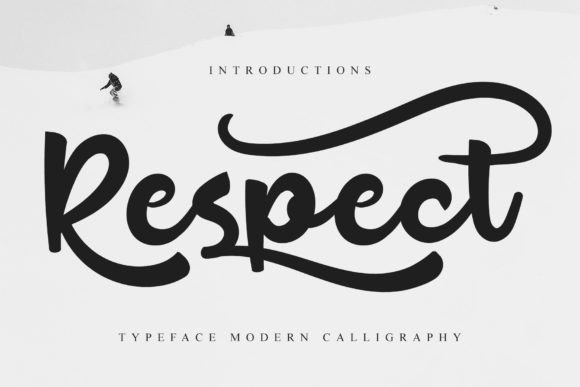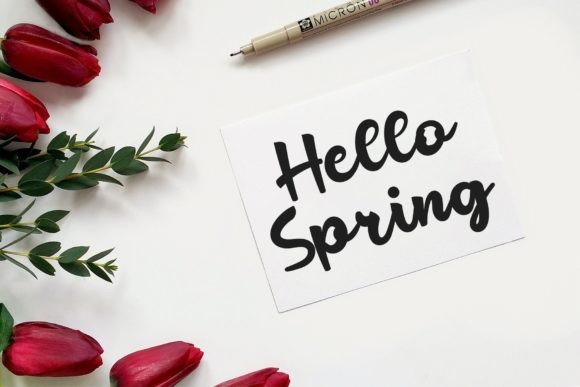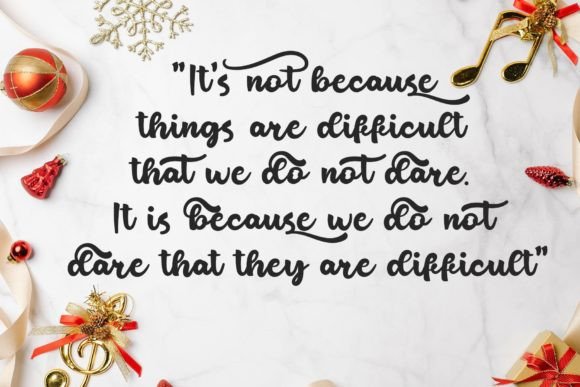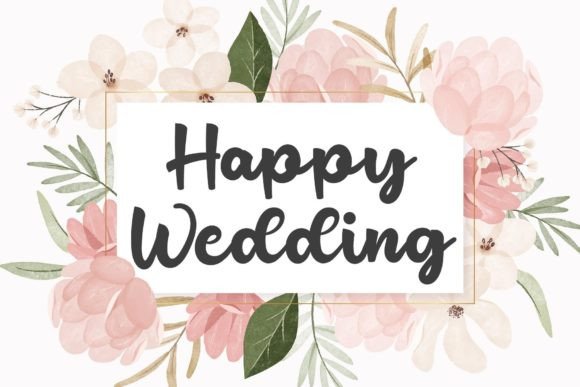
Respect Font
About the Respect Font
Experience the unique personality of Respect Font, a font designed for impact. Respect is a sweet and cursive handwritten signature script font. This gentle font will look gorgeous on a variety of design ideas. It will add a joyful and romantic touch to each of your projects! Perfectly fit for branding, logo, wedding things, greeting cards, fashion, lookbook, marketing promotion, anytime you want to look fancy elegant but still casual.
Respect’s gentle, cursive style shines in headlines, short text blocks on invitations or branding materials, and elegant logos. It’s ideal for projects emphasizing a romantic or whimsical feel, such as wedding stationery, feminine fashion branding, or product packaging for artisanal goods. However, its delicate nature makes it unsuitable for body text or UI elements where readability is paramount. Avoid using it for long paragraphs or small sizes.
Pair Respect with a clean sans-serif like Montserrat for a modern contrast, or a classic serif such as Garamond for a more traditional, timeless feel. A geometric sans-serif like Bebas Neue could add a touch of boldness for impactful headlines, while a playful script font like Pacifico would create a cohesive yet varied feel for more casual applications.
Respect exudes a softly elegant and romantic personality. Its casual charm is balanced by its refined cursive form, making it perfect for conveying a sense of warmth and sophistication.